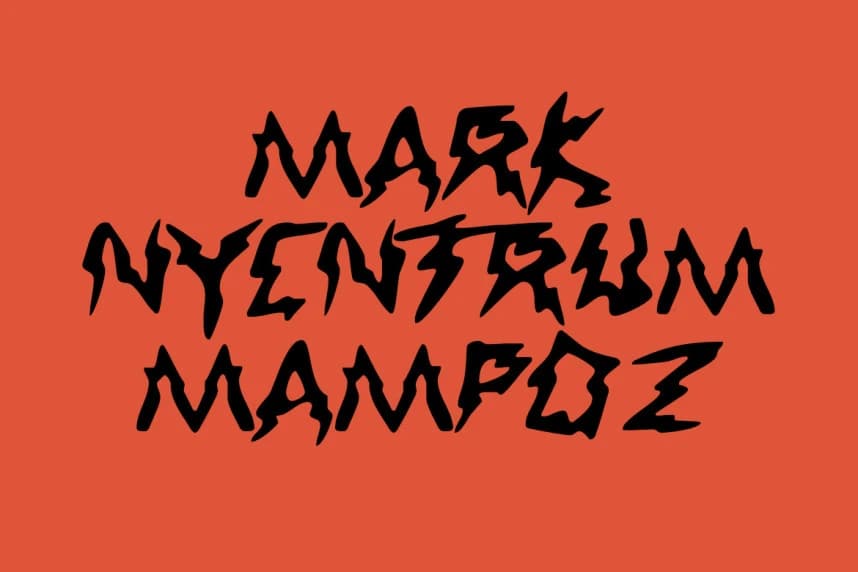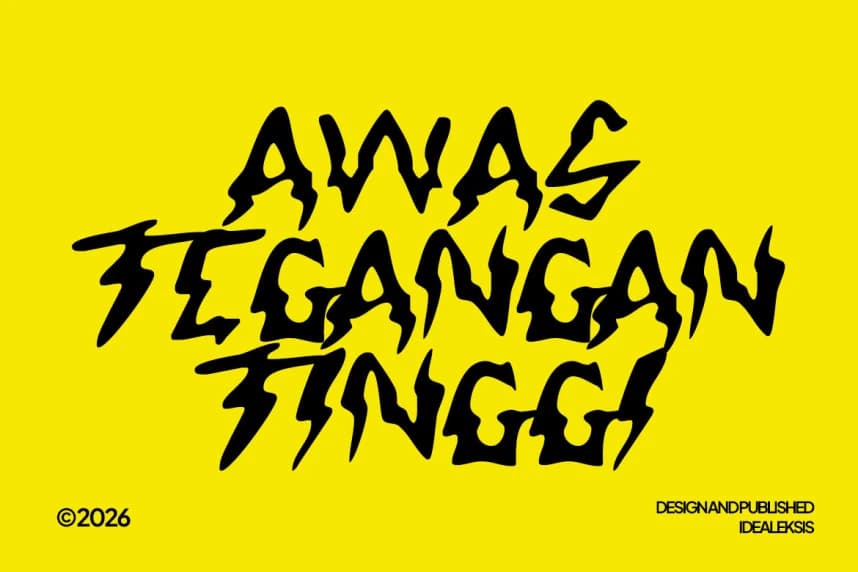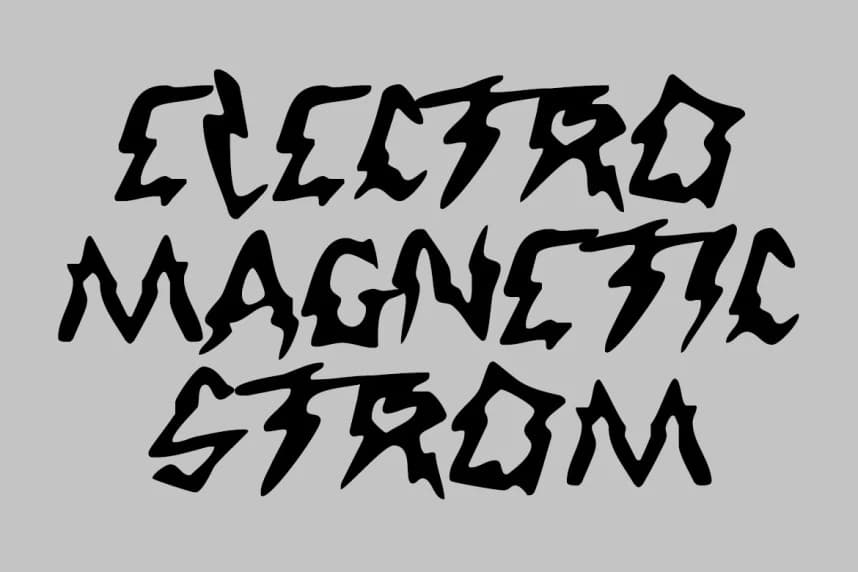
Listric Display Font
Listric Display Font is a bold, jagged display typeface infused with electrifying energy. Its sharp edges and angular strokes echo the power of a lightning bolt, giving the font a dynamic and rebellious character.